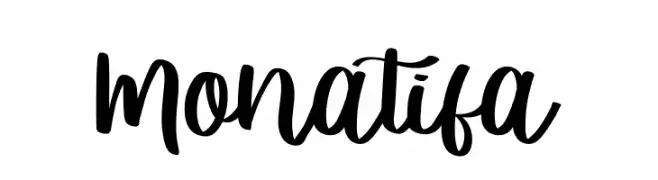
An ornate, decorative font with floral embellishments.
A bold, textured font with a stippled effect, perfect for eye-catching designs.
A modern, oblique, and condensed font with consistent stroke thickness.
A bold, expressive script font with dynamic curves and artistic flair.
A bold, decorative font with characters enclosed in circular badges, reminiscent of vintage typewriter keys.
A bold and expressive script font with interconnected letters and a playful elegance.